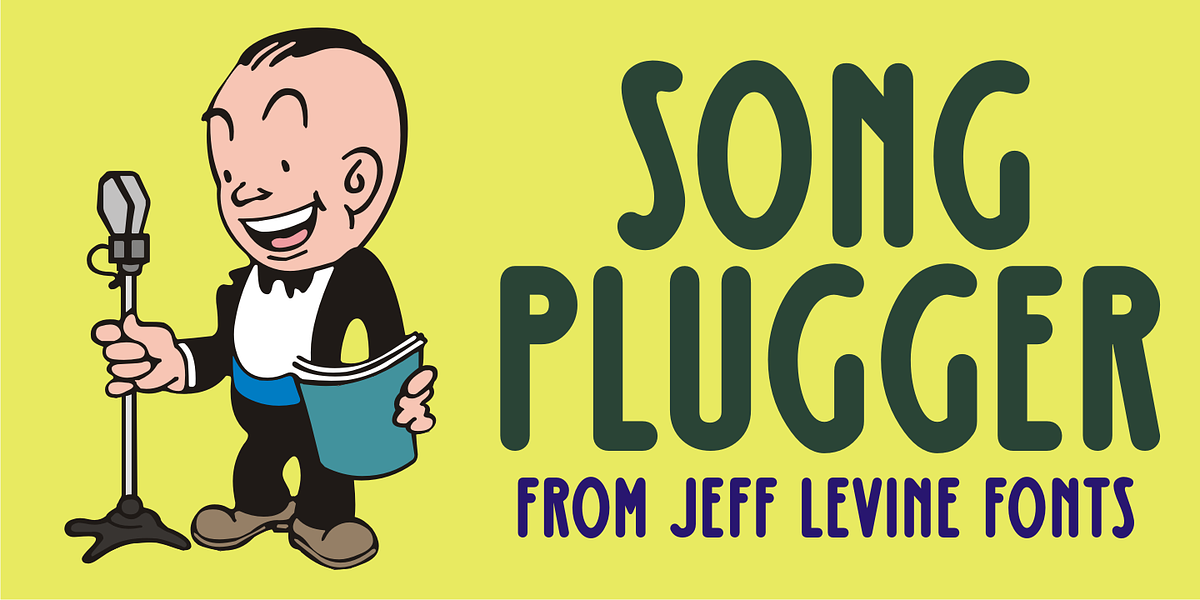
Song Plugger JNL
In the heyday of “Tin Pan Alley”, a song plugger was one whose job it was to bring a publisher’s song to the attention of performers, show producers and radio station executives; the forerunner of the promotion man who visited disk jockeys with new record releases in the hopes of getting them played on the air.
Song Plugger JNL was based on hand lettering spotted on some late-1920s-early 1930s sheet music.